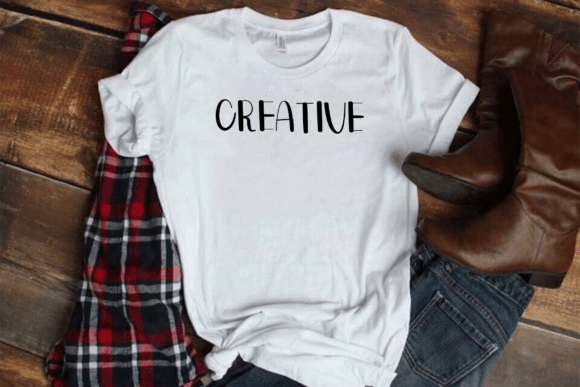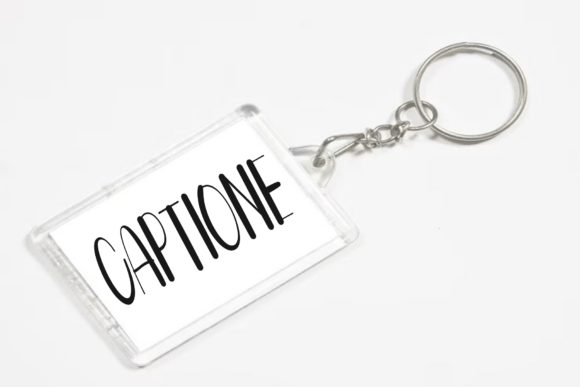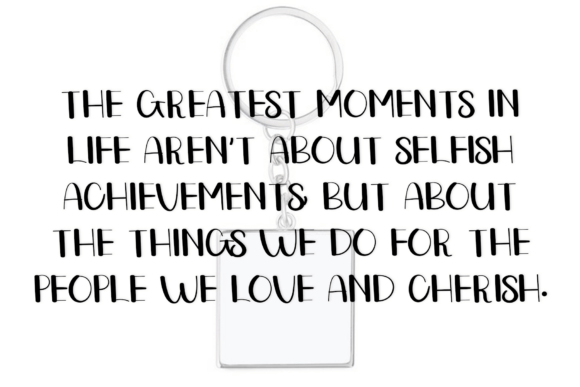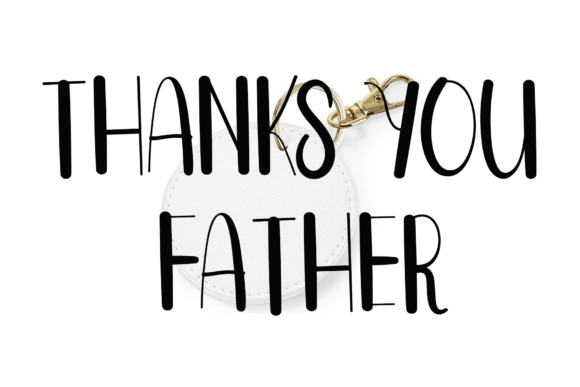
Keychains Font – Free Download
Introduction to Keychains Font
Keychains is the epitome of modern minimalism, offering a sleek, monolinear handwritten style that feels both professional and approachable.
This typeface features tall, slender characters with soft curves, making it an excellent choice for interior design branding, real estate logos, and contemporary lifestyle magazines .
Key Features of Keychains Font